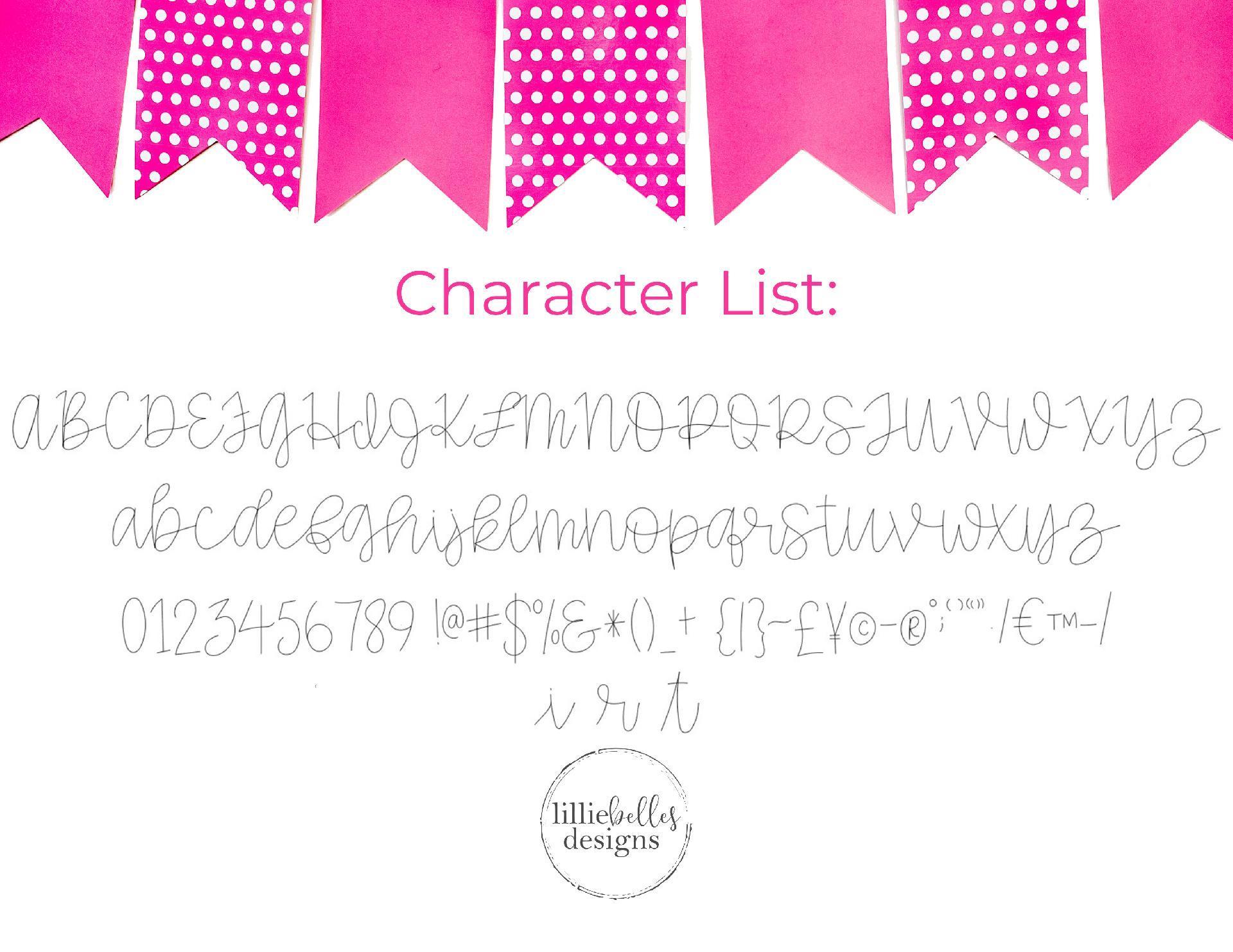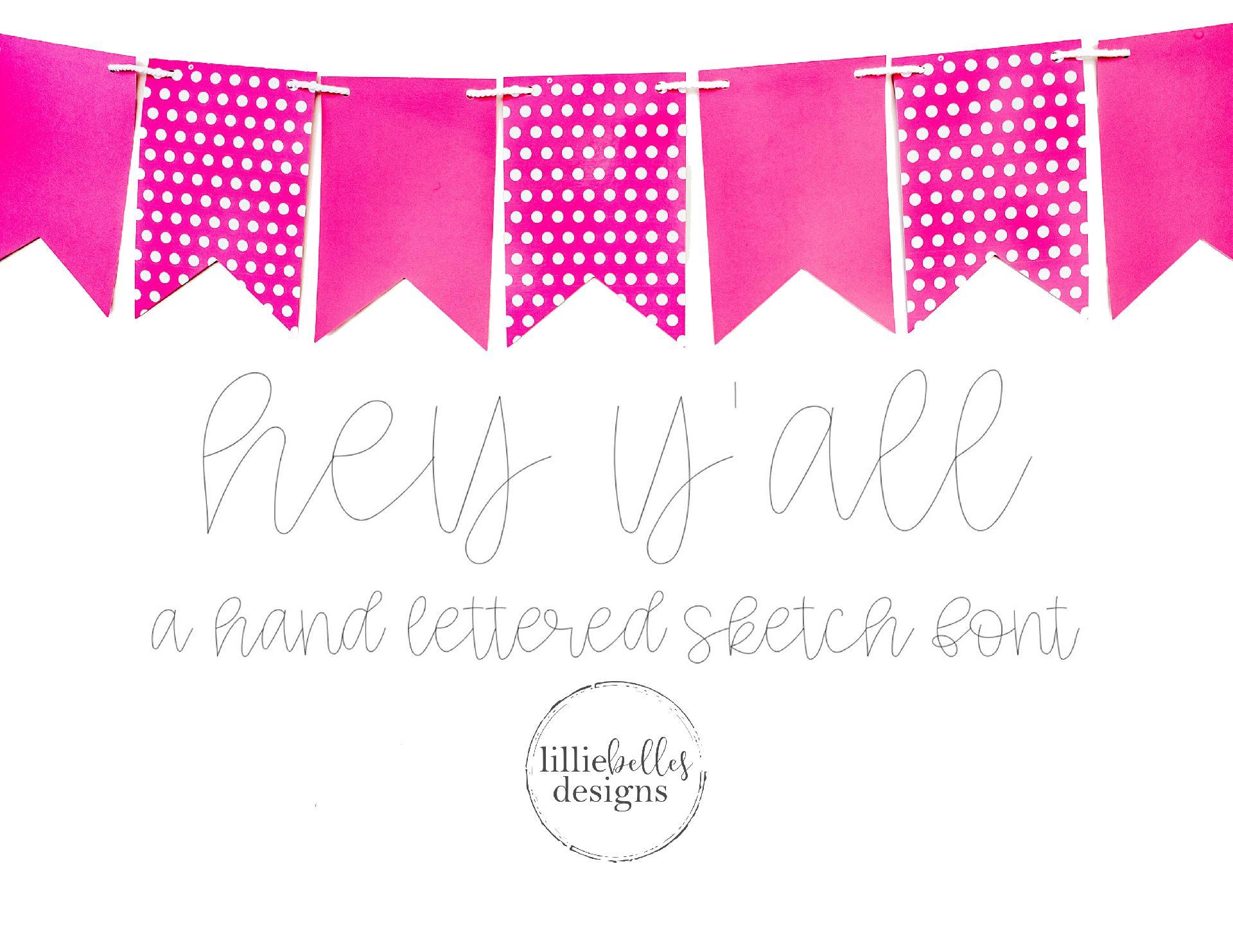
hey y’all sketch font
hey y’all – a hand lettered sketch font This is a sketch font and is designed to be used with sketch pens and your Silhouette machine.  Please note that it is not for cutting or printing from your computer. Uppercase and lowercase script characters Numbers, punctuation, and symbols Special beginning characters for i, r & t (you can access these through the glyphs panel in Silhouette studio) .otf and .ttf files Enjoy!